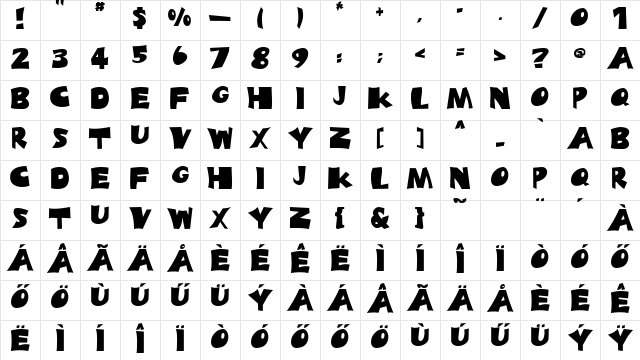
H_Blades Regular
Design Context for H_Blades
H_Blades is a composed and adaptable typeface that performs quietly and consistently across a wide range of design contexts.